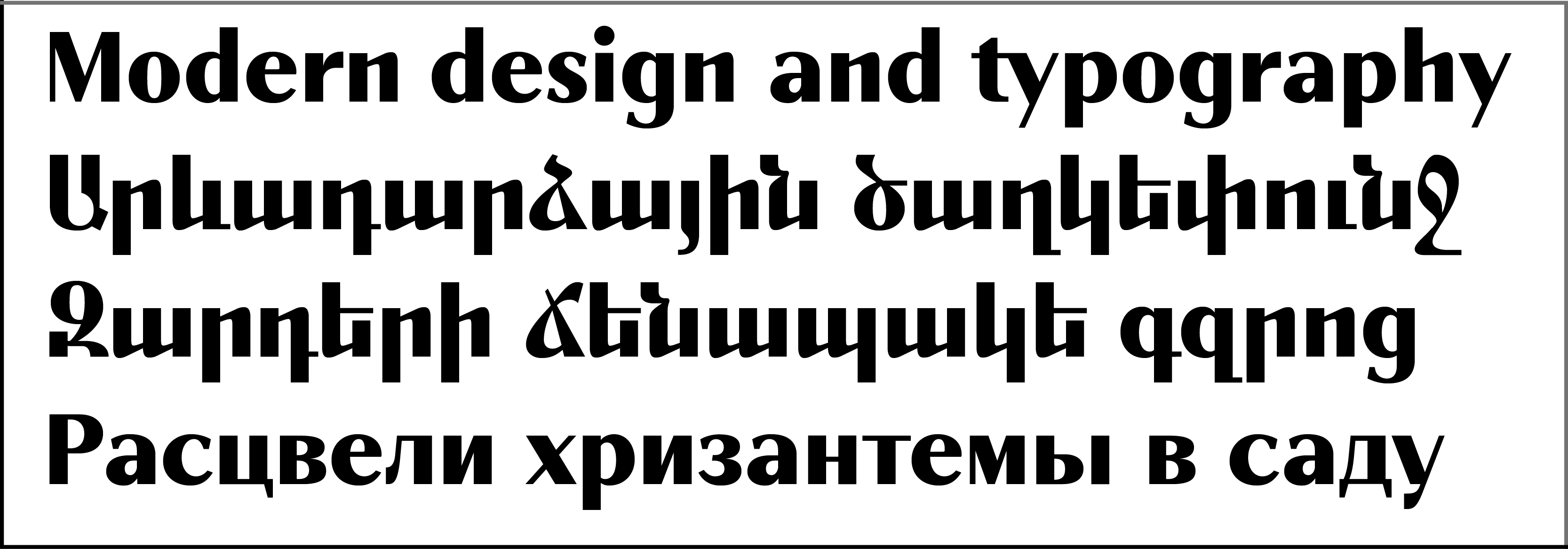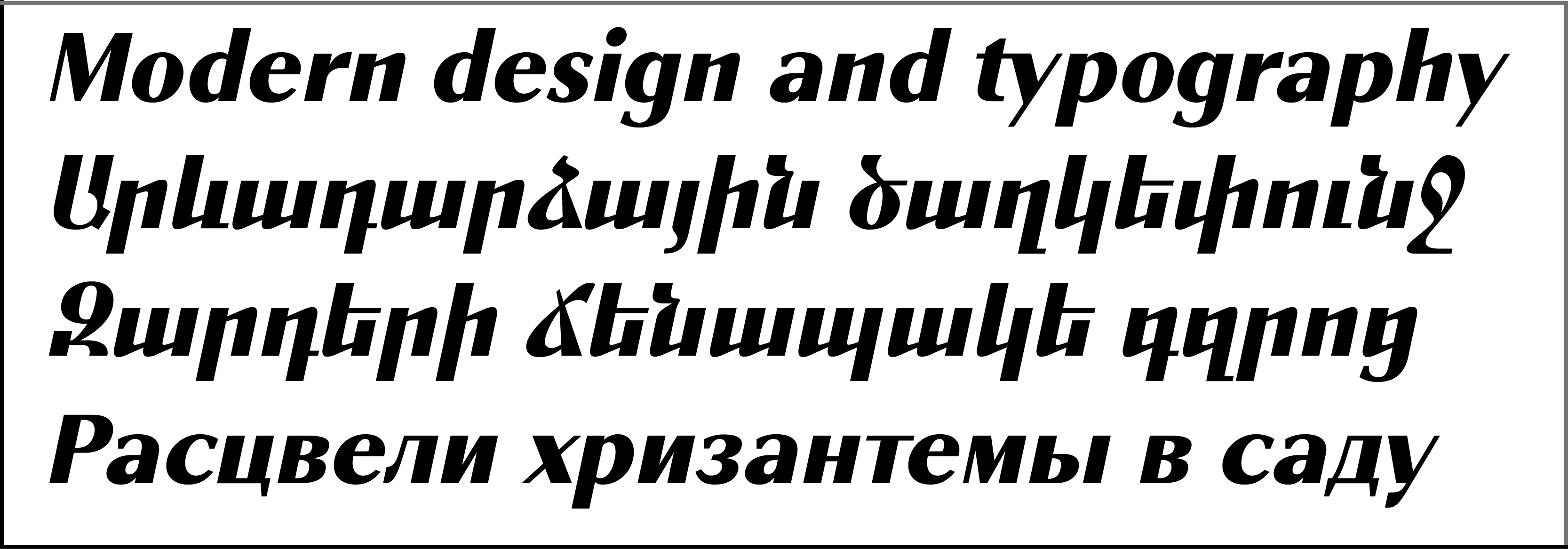
GHEA Vernatun Heavy
GHEA Vernatun is a Sans Serif Display font for using in titles, posters and advertisements.
It included Armenian, Cyrillic and Latin Central European language systems.
The font includes Basic and many Advanced Ligatures for Latin and Armenian.
GHEA Vernatun looks very nice in big sizes.